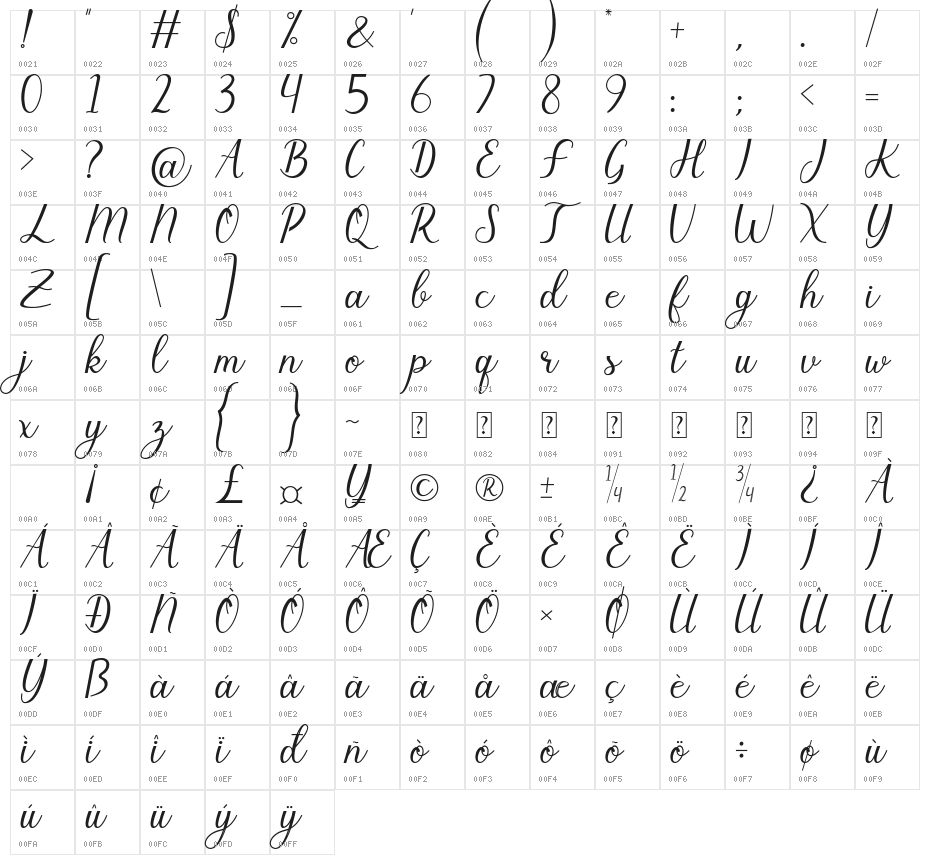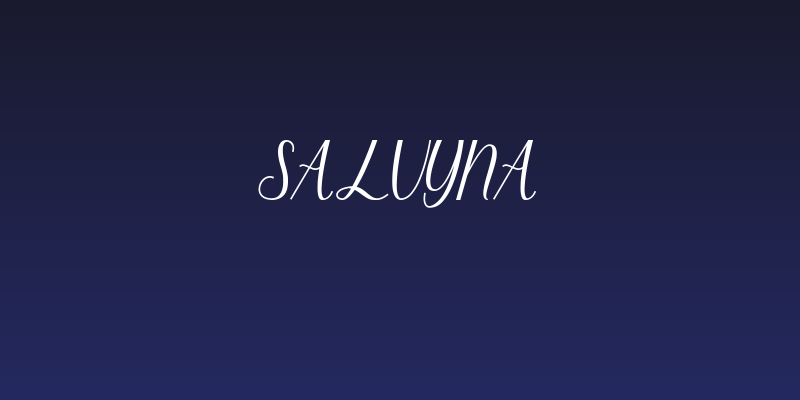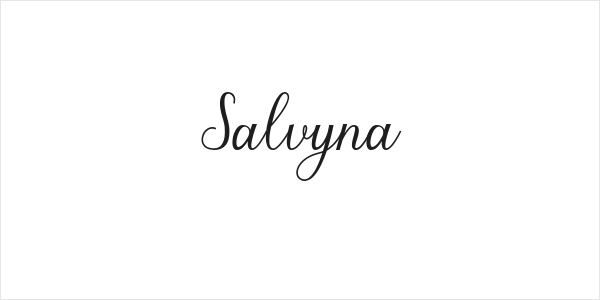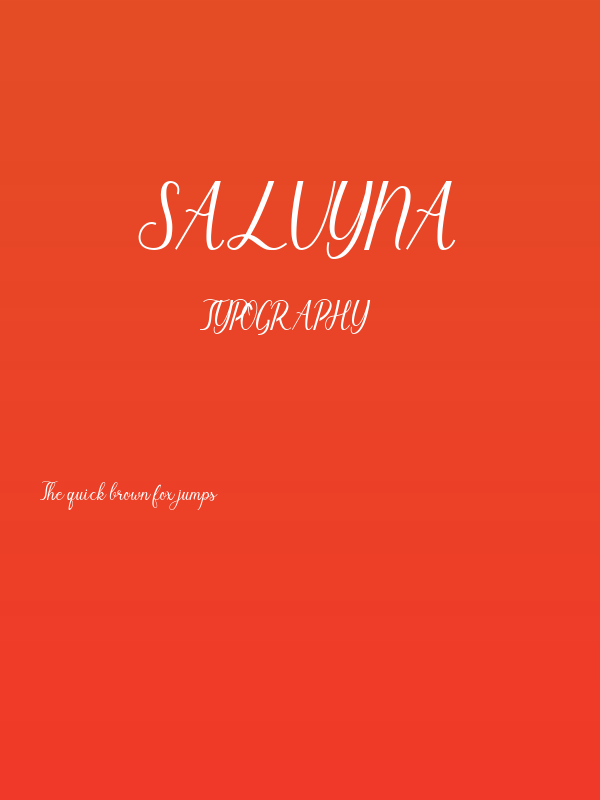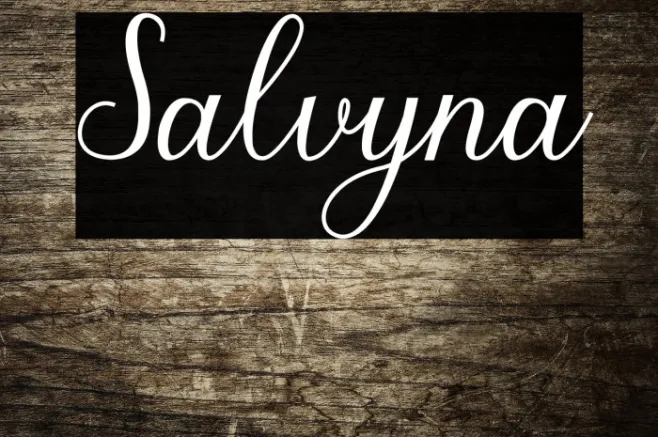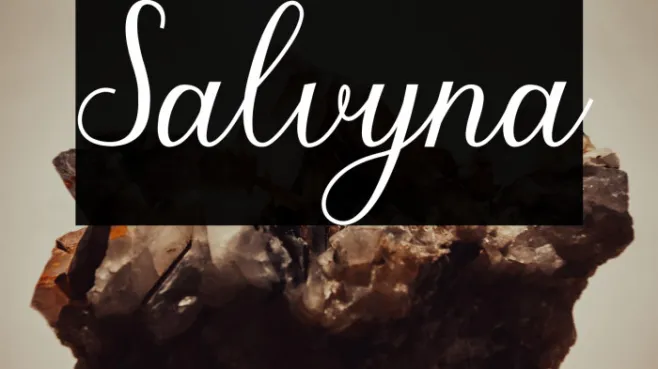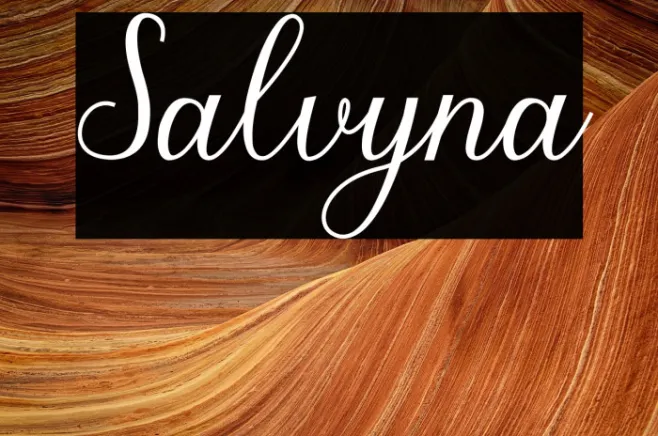
Salvyna Font
Salvyna Description
This elegant script font features flowing, cursive strokes that convey a sense of sophistication and grace. The uppercase letters are tall and slightly slanted, with intricate loops and swirls that add a decorative touch. The lowercase letters maintain a consistent style, with smooth connections between characters, enhancing readability while preserving the font's ornate nature. The numerals are designed with similar elegance, featuring curved lines that complement the overall aesthetic. Special characters are thoughtfully integrated, maintaining the font's cohesive style. This font is perfect for projects that require a touch of elegance and refinement.